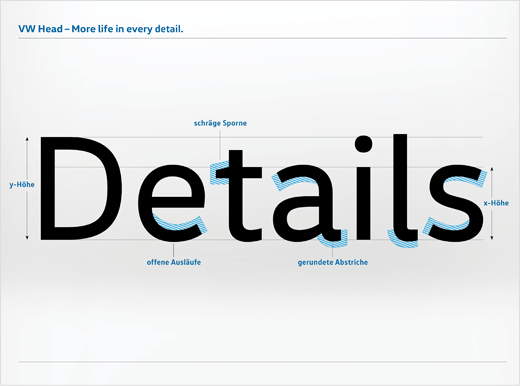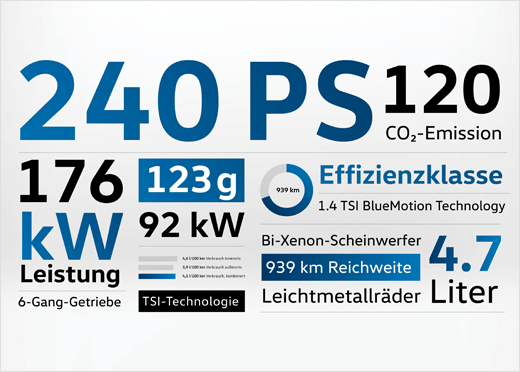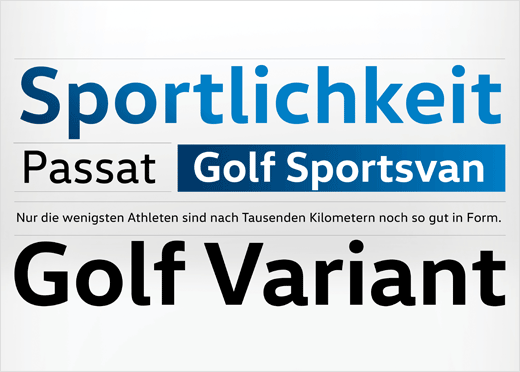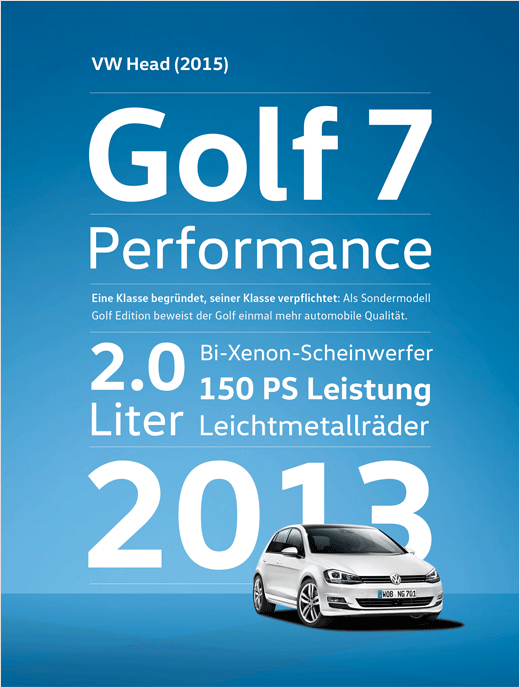
MetaDesign Gives Volkswagen Brand a New Typeface
German brand agency MetaDesign has developed a new typeface for carmaker Volkswagen.
The brand typeface, developed exclusively for Volkswagen, will be used in all communication media and in all vehicles. It will be rolled out successively according to production cycles.
The designers say ongoing digitalisation and globalisation placed new demands on Volkswagen’s integrated brand image.
“The increasingly digital cockpit design means that brand elements such as the typeface are becoming more prominent inside the vehicle, for example in the instruments and infotainment systems. And as the Volkswagen brand has continued to develop over the years, its look has always grown with it. As a key component of the brand’s look and feel, the typeface has now been reworked and updated. The use of a proprietary typeface also contributes to cost-efficiency, allowing the company to avoid license payments for unlimited user rights,” explain the designers.
The bespoke typeface was developed in collaboration with the typographer Hannes von Döhren in two distinctions, “Volkswagen Head” and “Volkswagen Text”.
“Having a typeface that we can use in both our communication and our products is a new quality for Volkswagen. This typeface is obviously inspired by our vehicle design, communicates the character of our brand and offers Volkswagen customers a distinct and sustainable brand experience,” says Xavier Chardon, head of marketing at Volkswagen Brand Cars.
The partnership between MetaDesign and Volkswagen dates back to 1994. The Berlin-based brand agency also created the carmaker’s outgoing typefaces, VW Headline and VW Utopia, both in use since 1997.